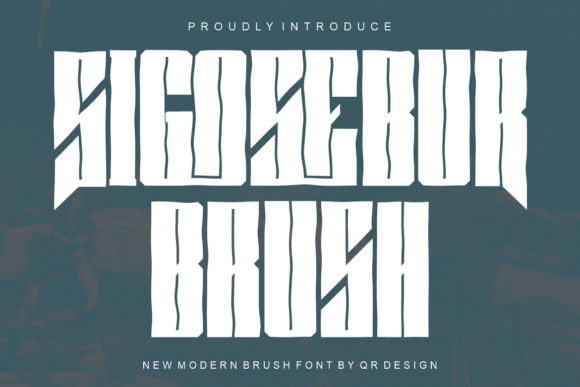
Witness the Sigosebur Brush Font, a striking display font born from the fusion of boldness and authenticity. This captivating font is designed to leave an unforgettable impression, making it the perfect choice for those seeking to make a statement. Whether you're a creative professional or a passionate individual seeking a unique typographic expression, Sigosebur Brush Font is your answer.
Journey through a world of limitless possibilities as you explore the versatility of Sigosebur Brush Font. Its robust and unwavering presence commands attention, while its underlying charm captivates hearts. Let your imagination run wild as you envision the stunning logos, electrifying sports graphics, and captivating branding projects you can create with this font as your ally.
With Sigosebur Brush Font, your creative horizons expand far beyond the ordinary. Its ability to shine in a vast array of contexts is a testament to its exceptional craftsmanship. From the dynamic realm of sports to the elegance of fashion, Sigosebur Brush Font effortlessly adapts, becoming an integral part of your design narrative.
Unleash your individuality and let Sigosebur Brush Font ignite your creative spirit. Its bold strokes and authentic textures are a canvas upon which your ideas take flight. It's a font that empowers you to break free from the mundane and embrace the extraordinary. Whether you're a seasoned designer or just starting your creative journey, Sigosebur Brush Font is the key to unlocking your true potential.